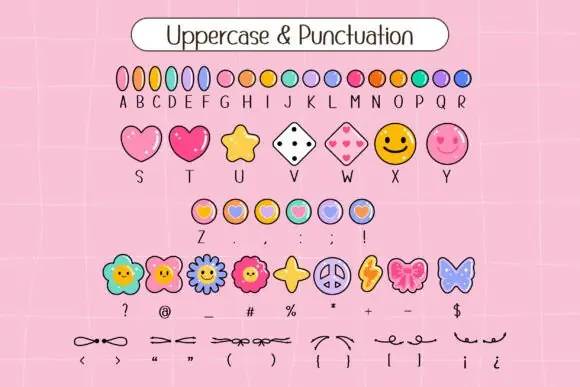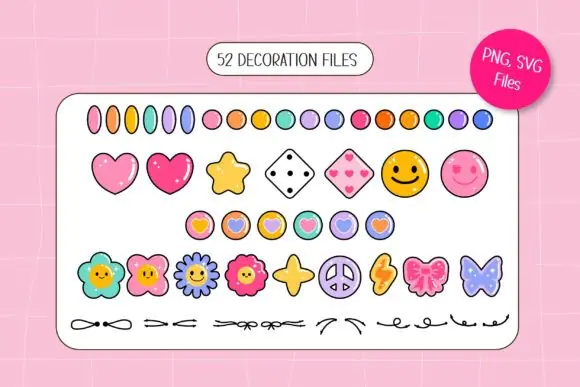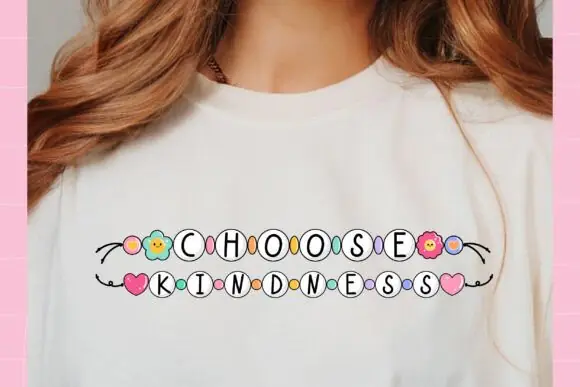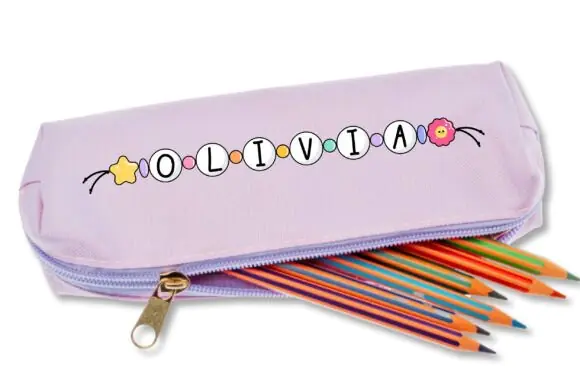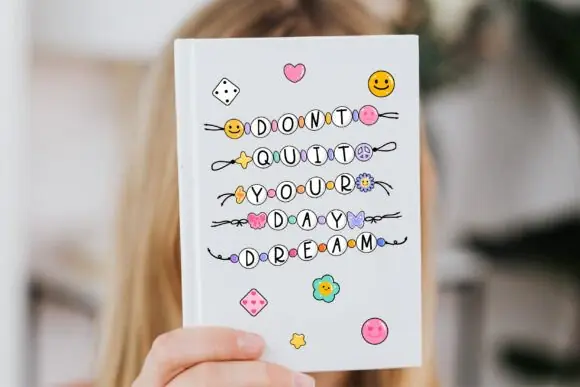
Create colorful, cheerful, and heartfelt designs with Friendship Bracelet Font, a playful decorative font inspired by the bright bead designs of handmade friendship bracelets. Designed to symbolize connection, care, friendship, and lasting bonds, this font adds a fun handmade touch to every creative project.
Each letter is styled to resemble cute colorful beads, making your typography feel joyful, friendly, and full of personality. Friendship Bracelet Font is perfect for designers, crafters, scrapbookers, stationery makers, print-on-demand sellers, small business owners, and DIY creators who want a warm and meaningful font for friendship-themed designs.
This font set includes an OTF font file along with matching doodle cliparts, giving you extra creative elements to decorate your designs. Use it for craft t-shirts, best friend shirts, friendship cards, scrapbook pages, bag designs, stickers, planner pages, greeting cards, birthday designs, party invitations, social media posts, DIY projects, and personalized gifts.
Whether you are creating a cute best friend gift, handmade-style t-shirt, friendship scrapbook layout, colorful card, or fun craft product, Friendship Bracelet Font brings a bright, personal, and heartwarming style to your work.